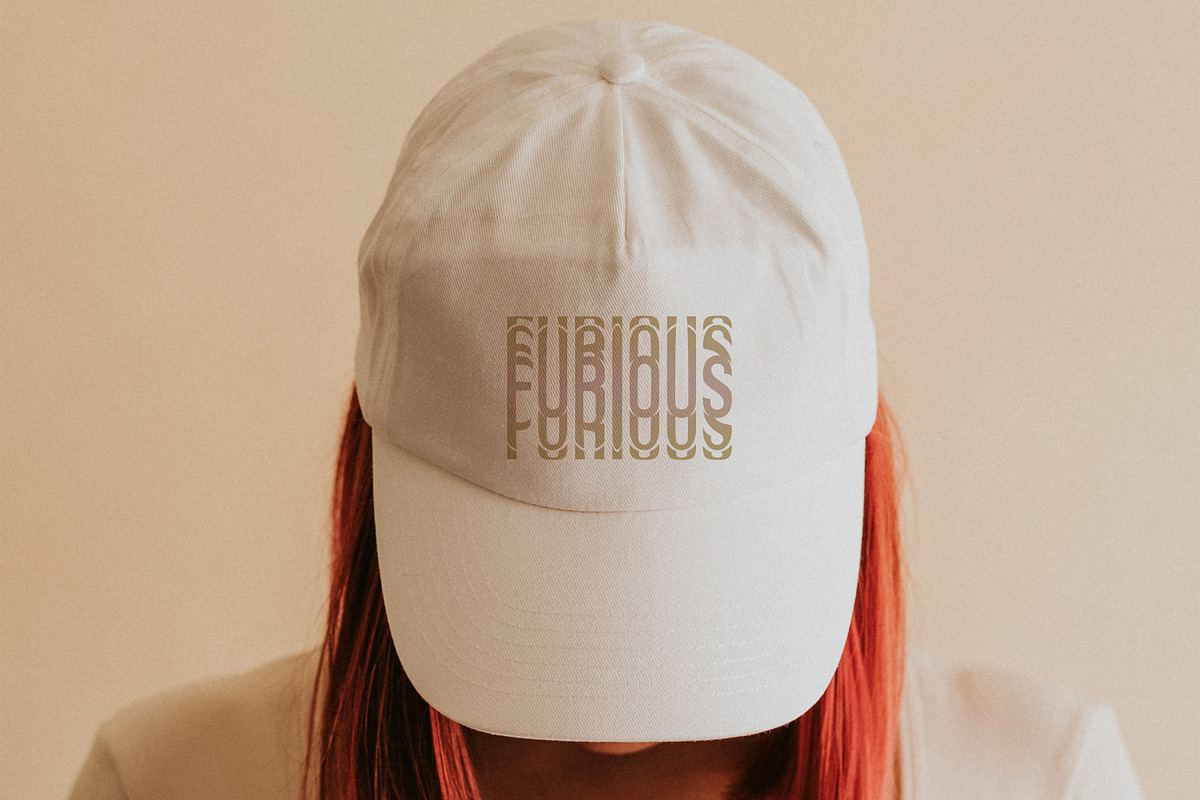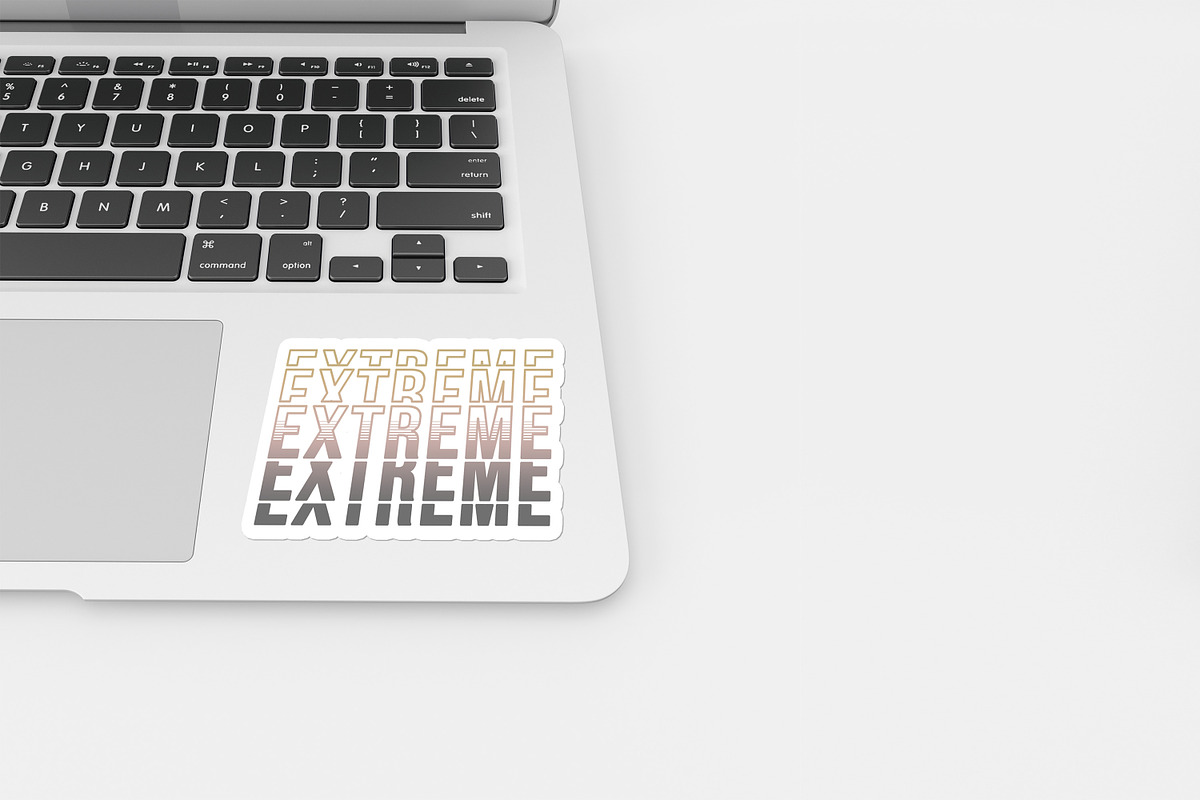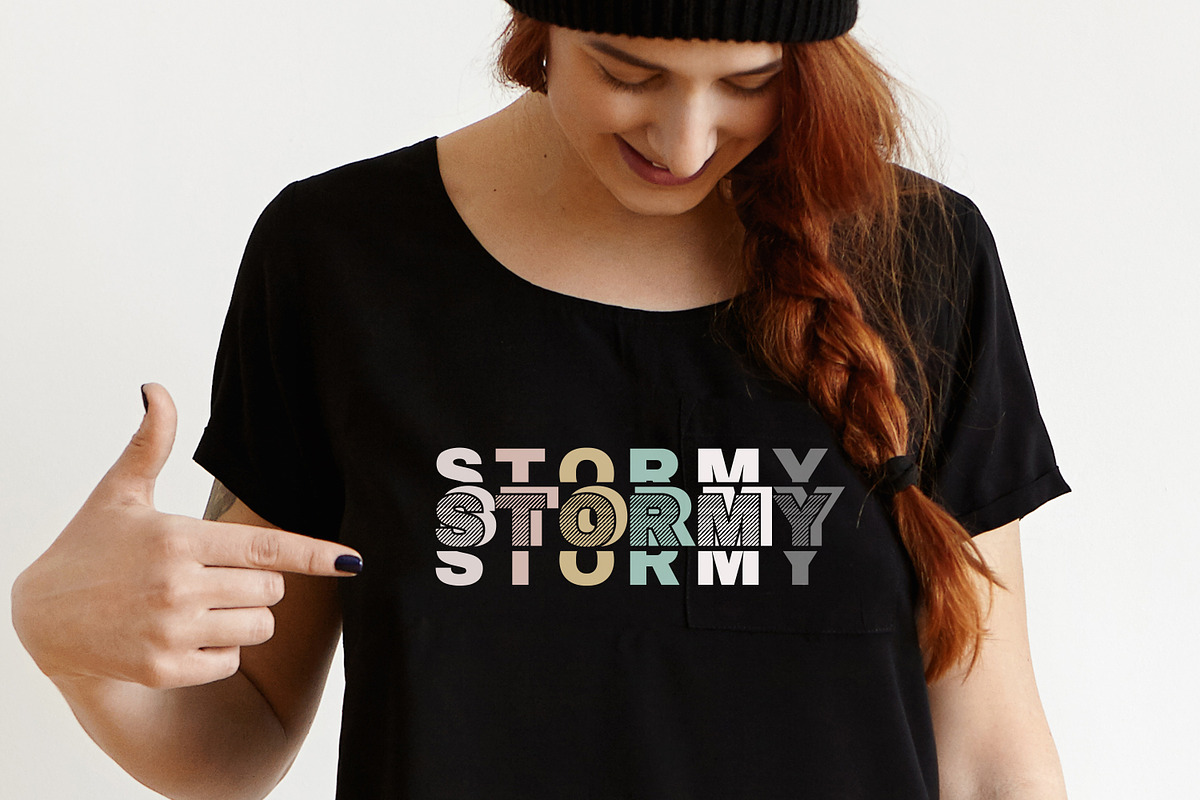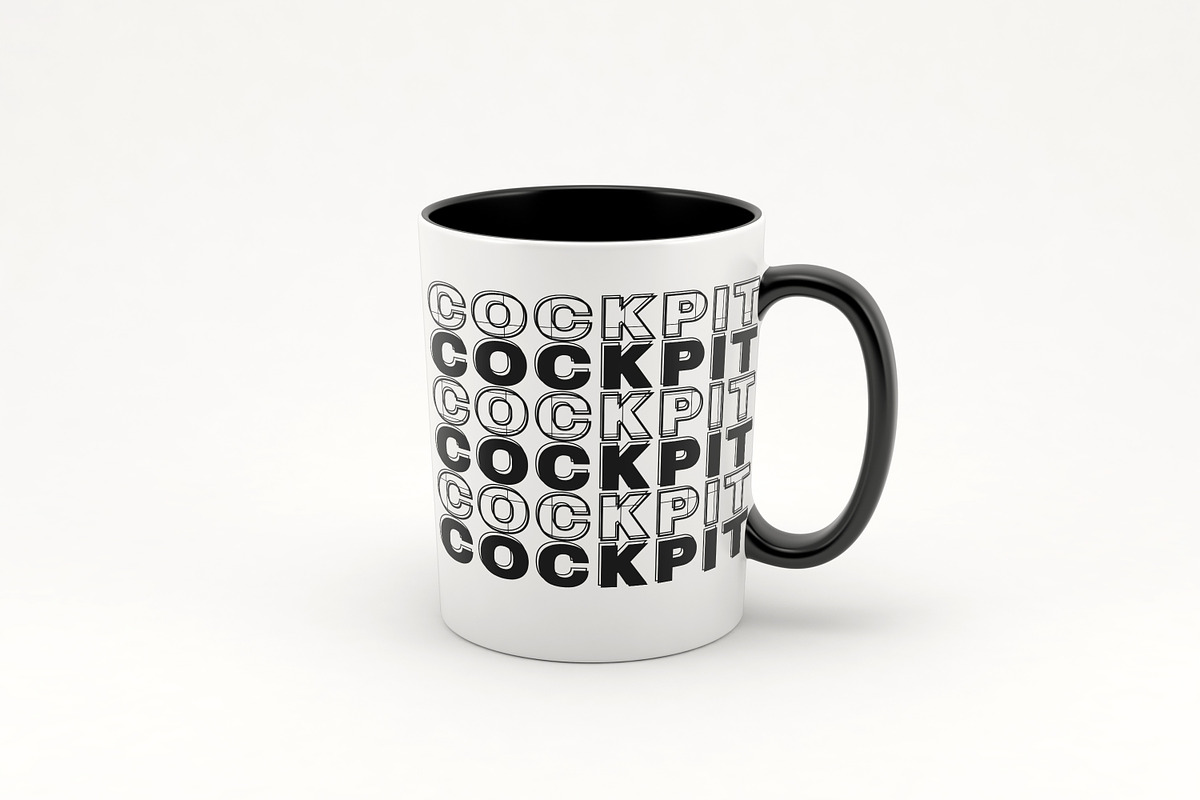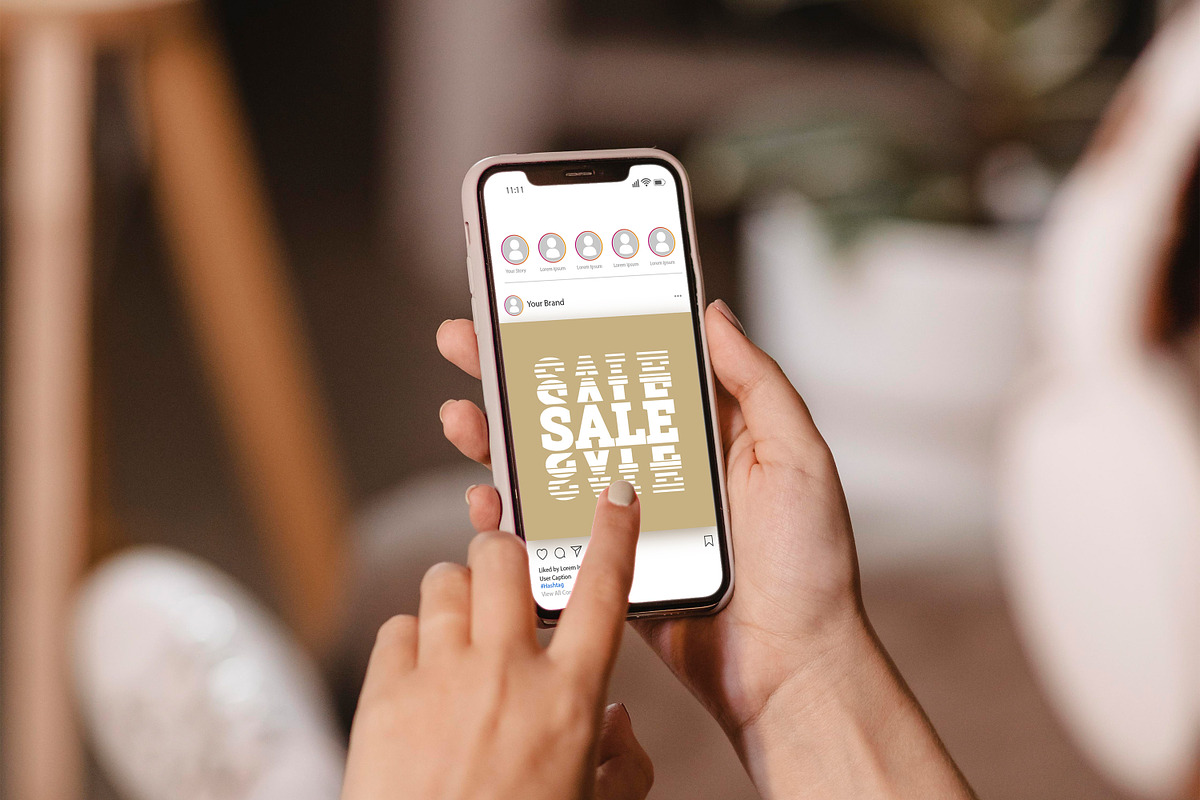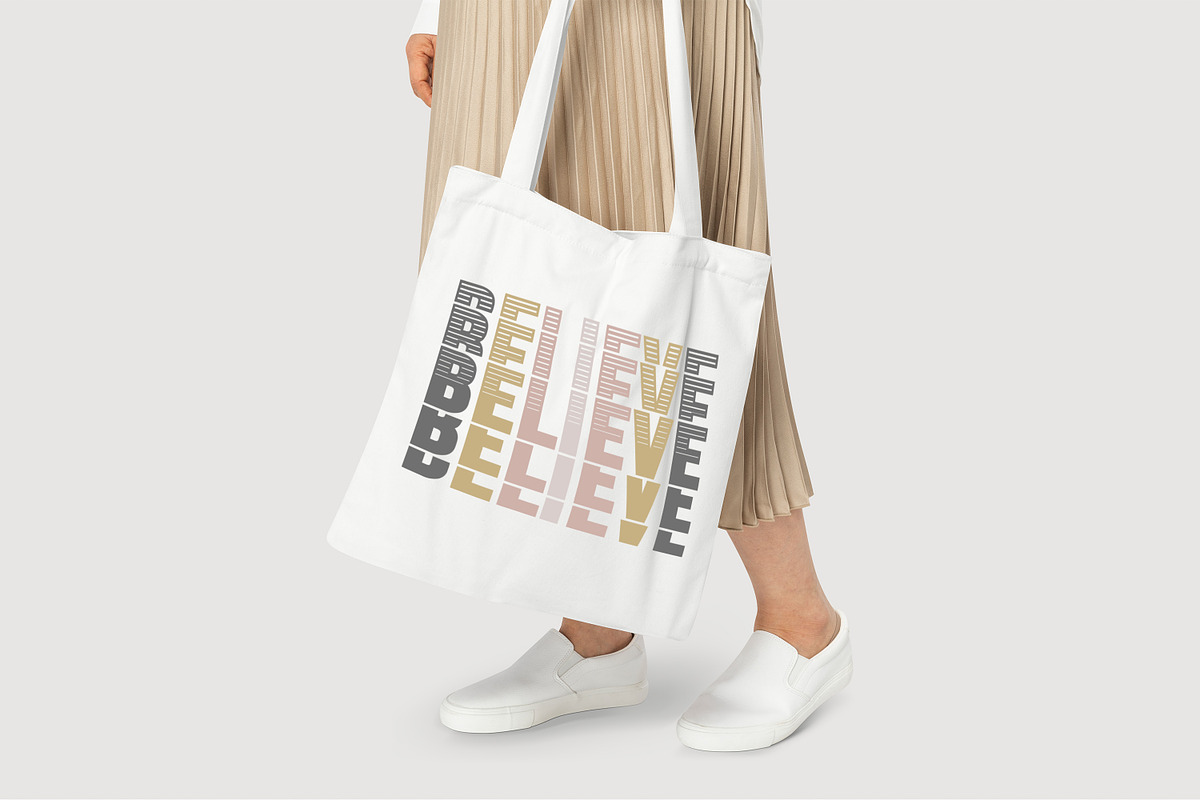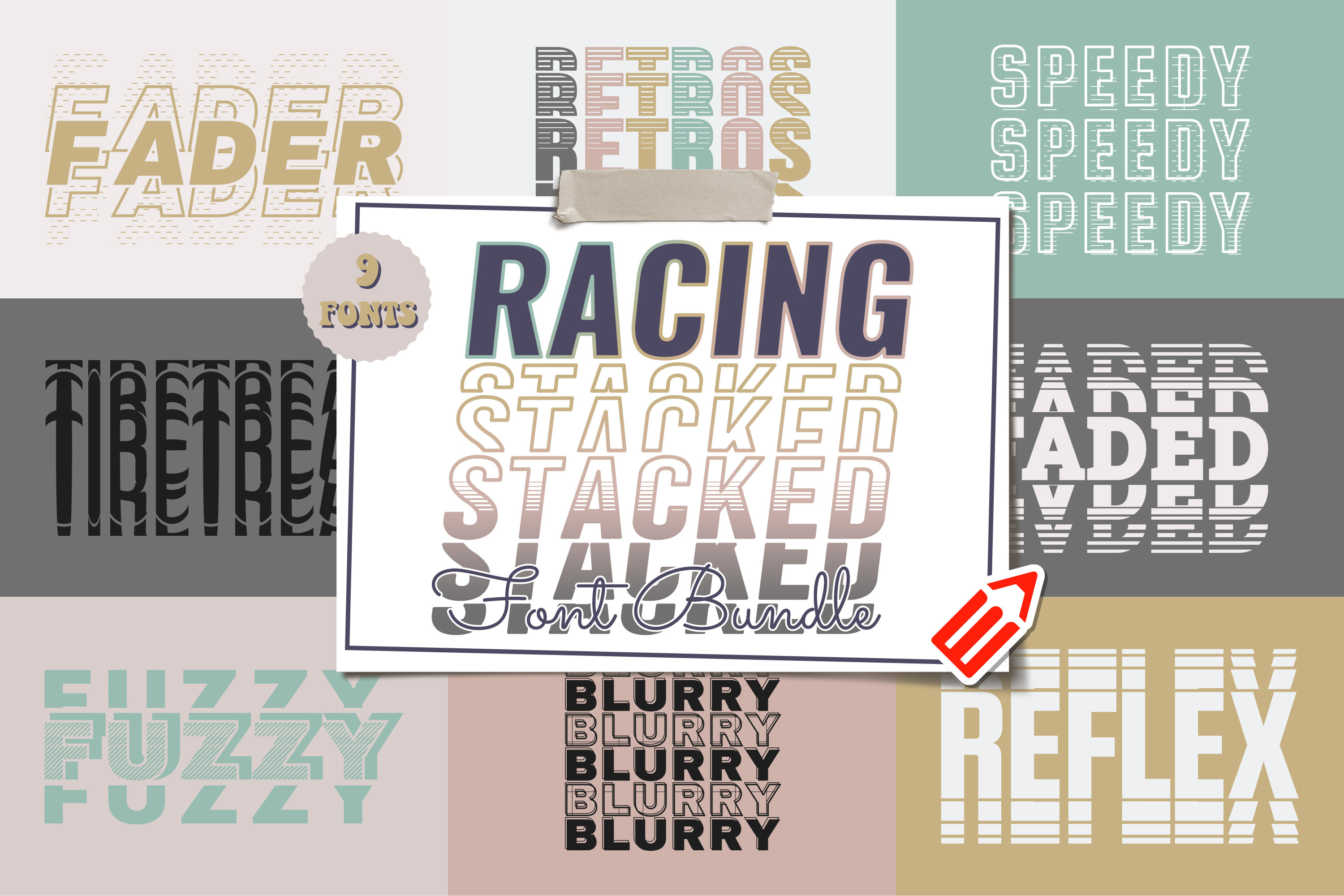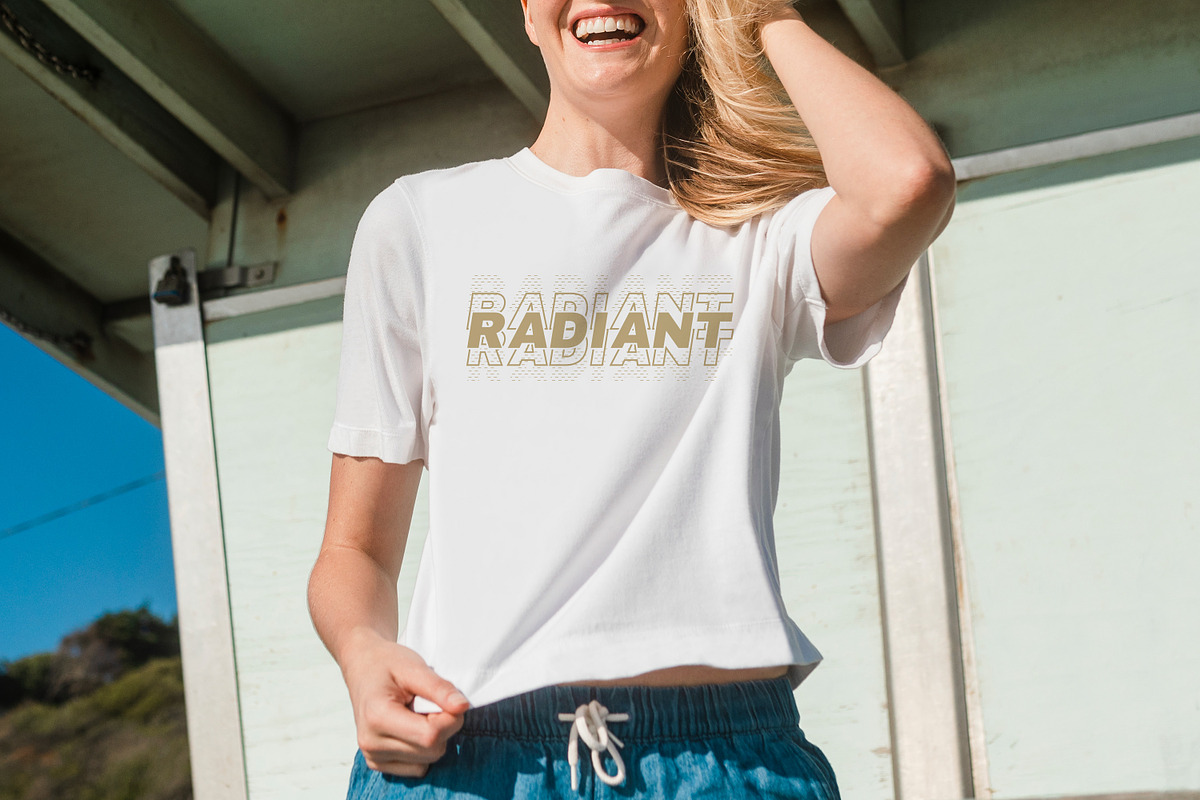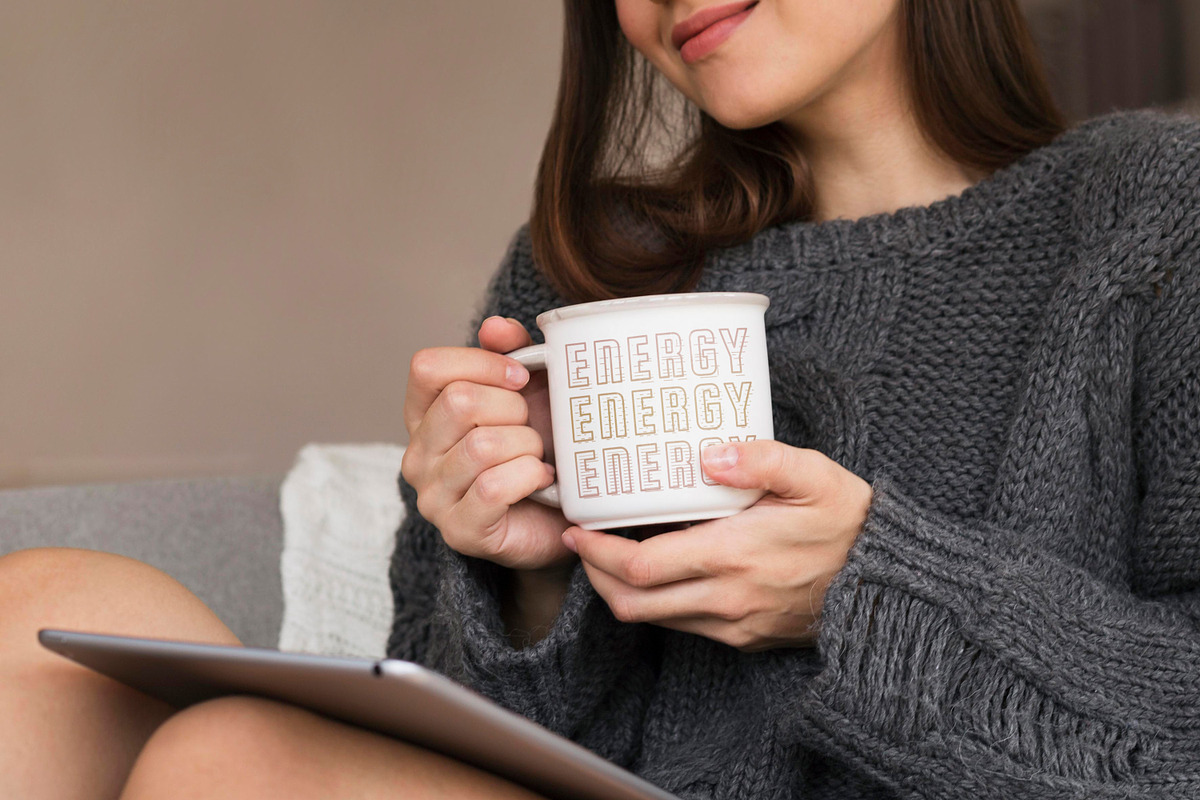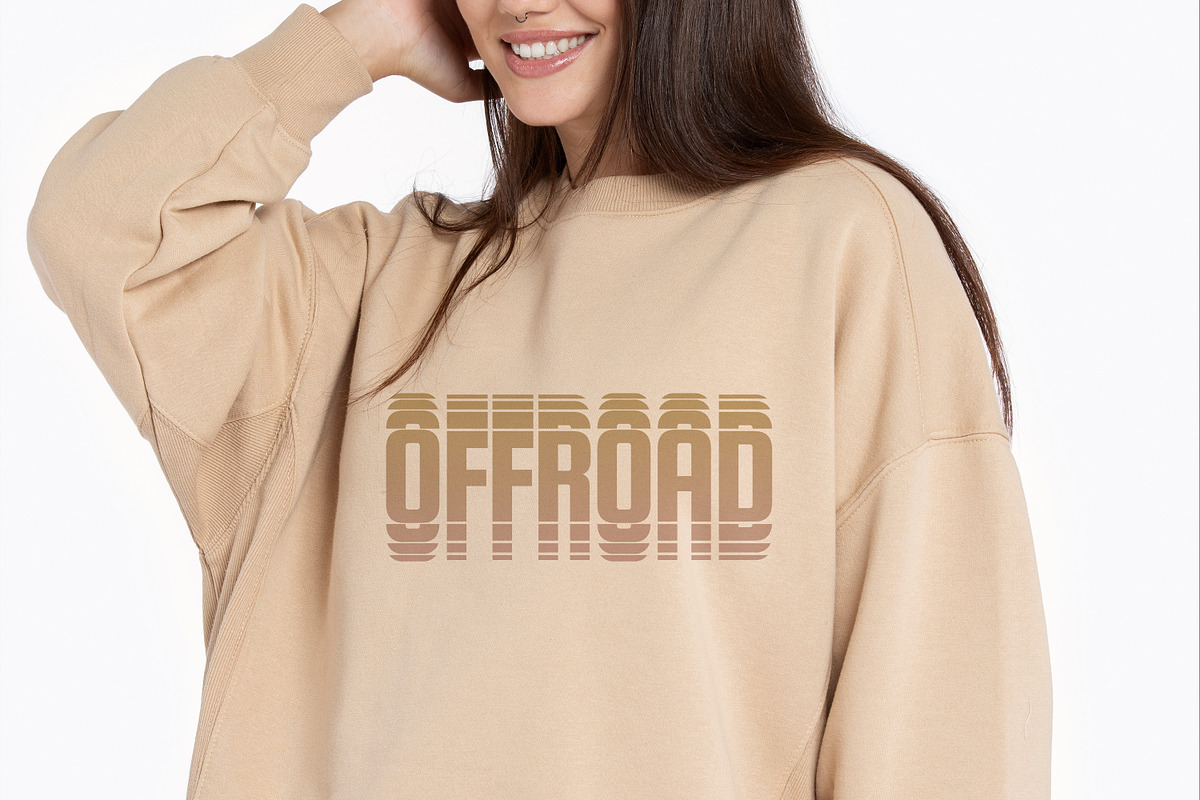
Racing Stacked Font Bundle
Racing Stacked Font Bundle is here with an incredible selection of 9 stacked fonts. An adrenaline-fueled collection that brings the speed and excitement of the racetrack to your designs! This thrilling bundle features Racing Fonts designed to capture the sleek lines and dynamic energy of the racing world. With a range of bold, aerodynamic letterforms and racing-inspired characters, this bundle is perfect for creating eye-catching racing logos, high-octane event promotions, and captivating motorsport-themed designs. Whether you're designing for a racing team or creating engaging automotive graphics, our Racing Stacked Font Bundle will ignite the passion and intensity of the race. Get ready to accelerate your designs with our Racing Stacked Font Bundle - where typography meets the fast lane for an unforgettable design experience!
Included in this pack: Blurry Contra Faded Fader Fuzzy Reflex Retros Speedy Tire Tread